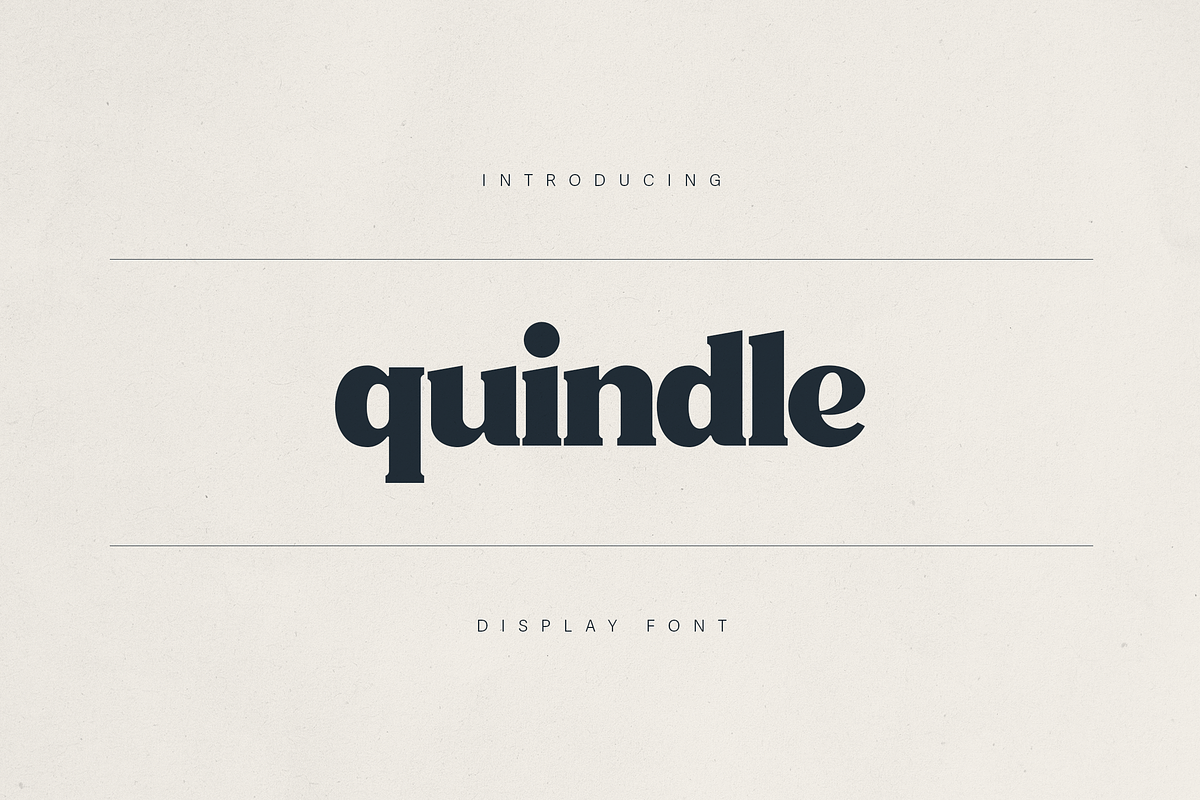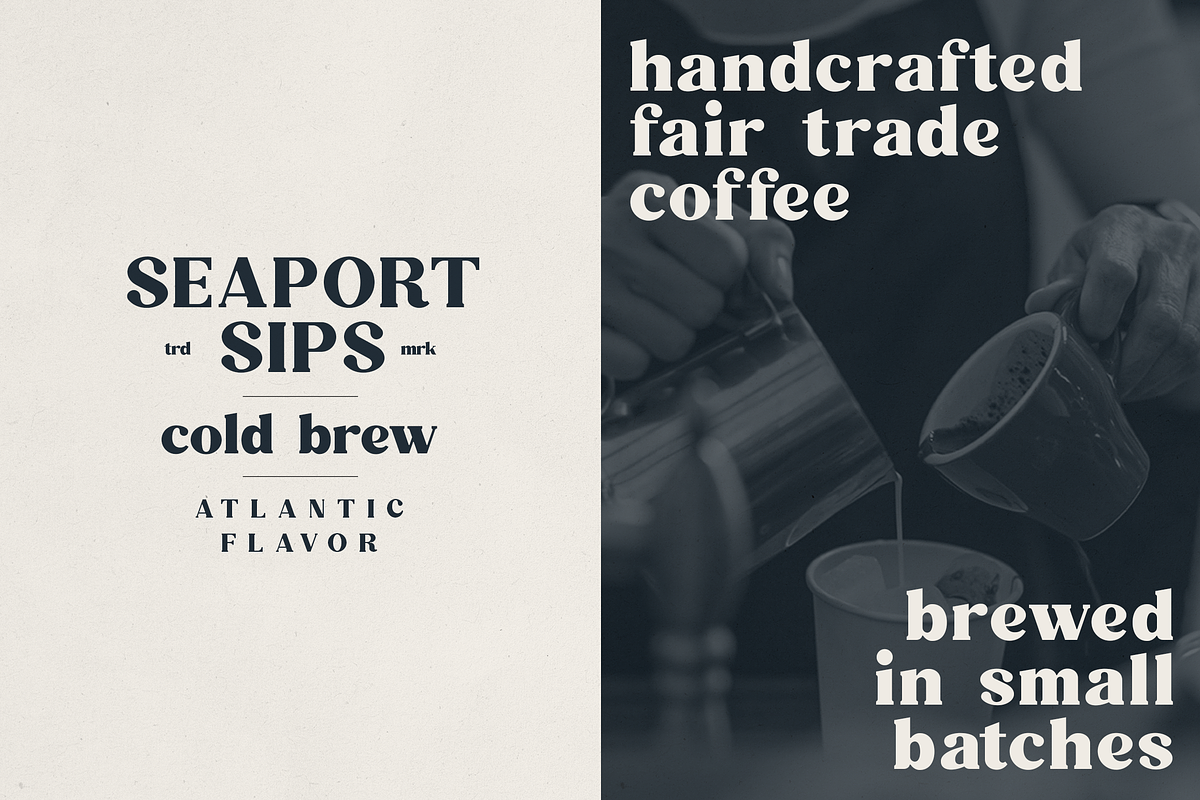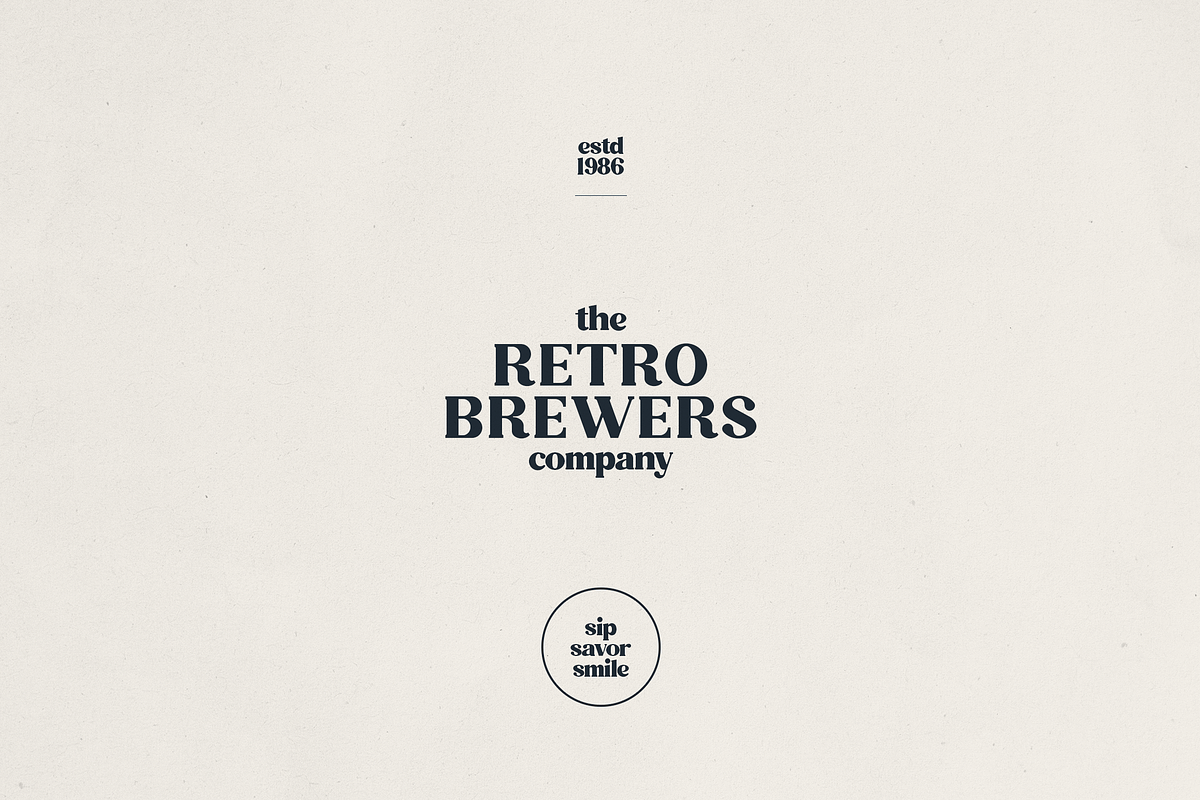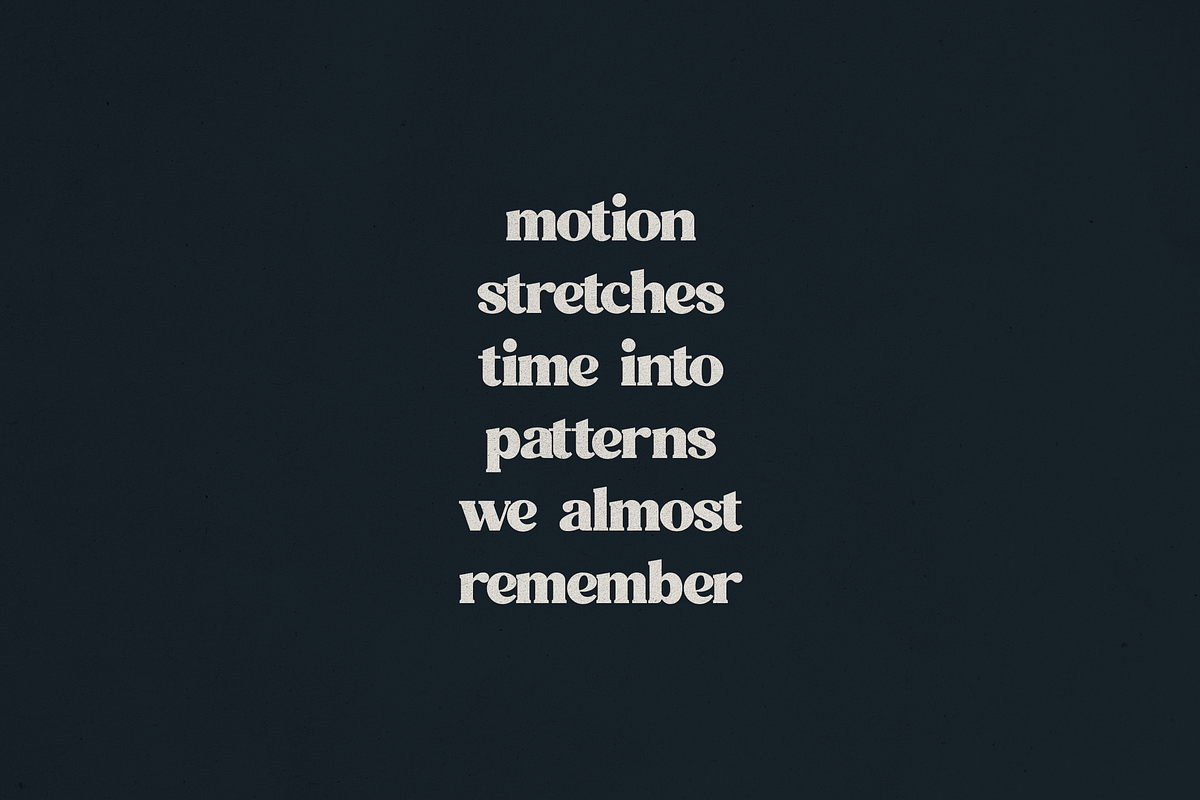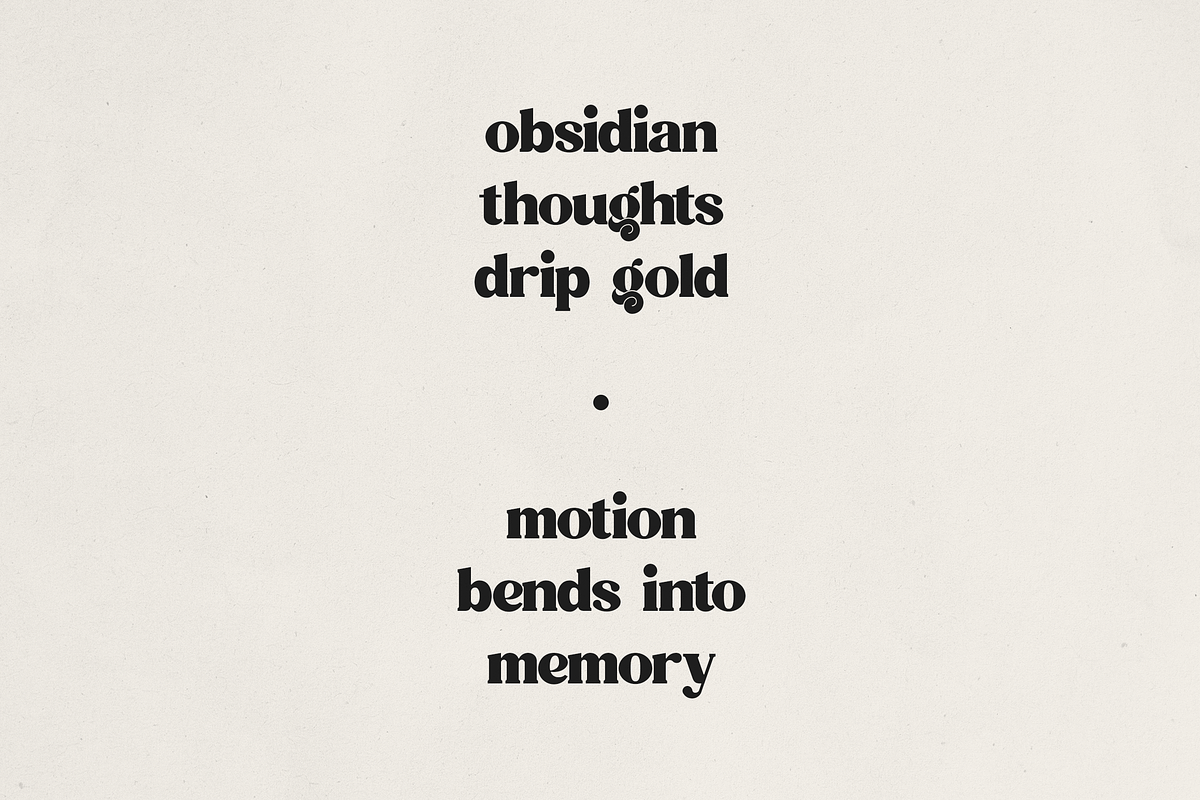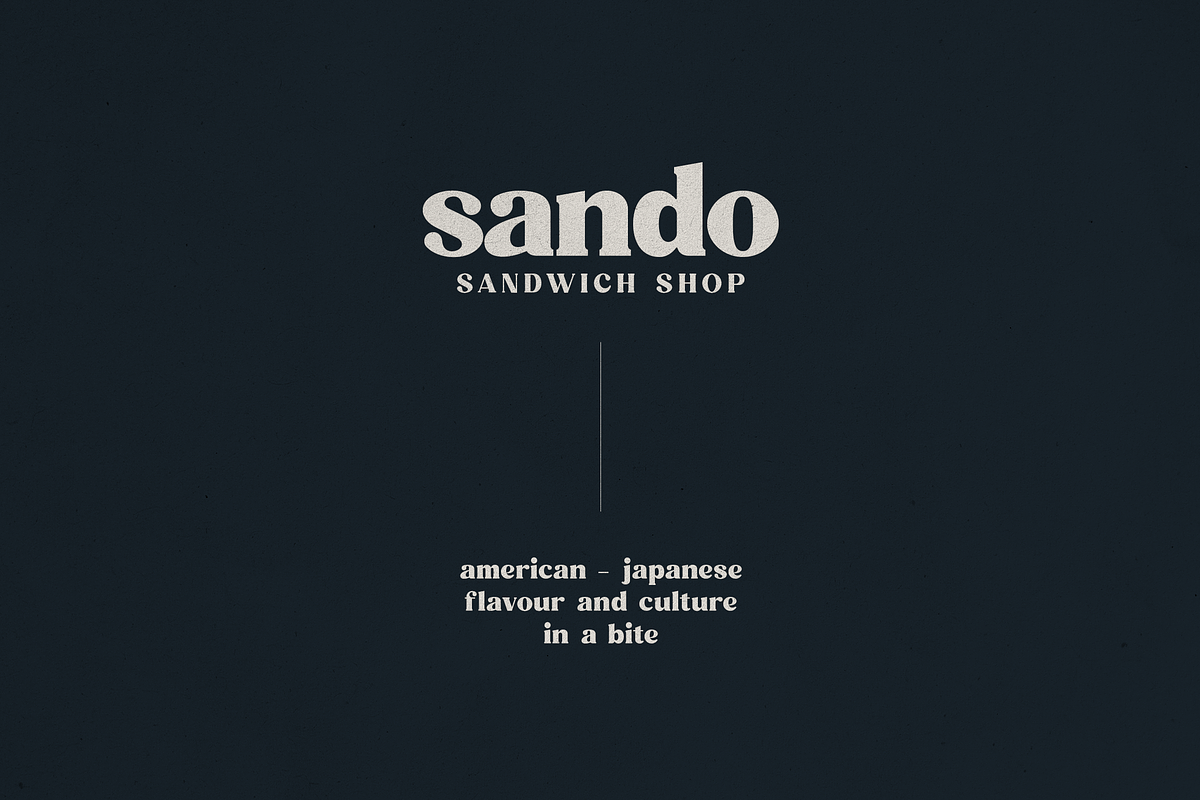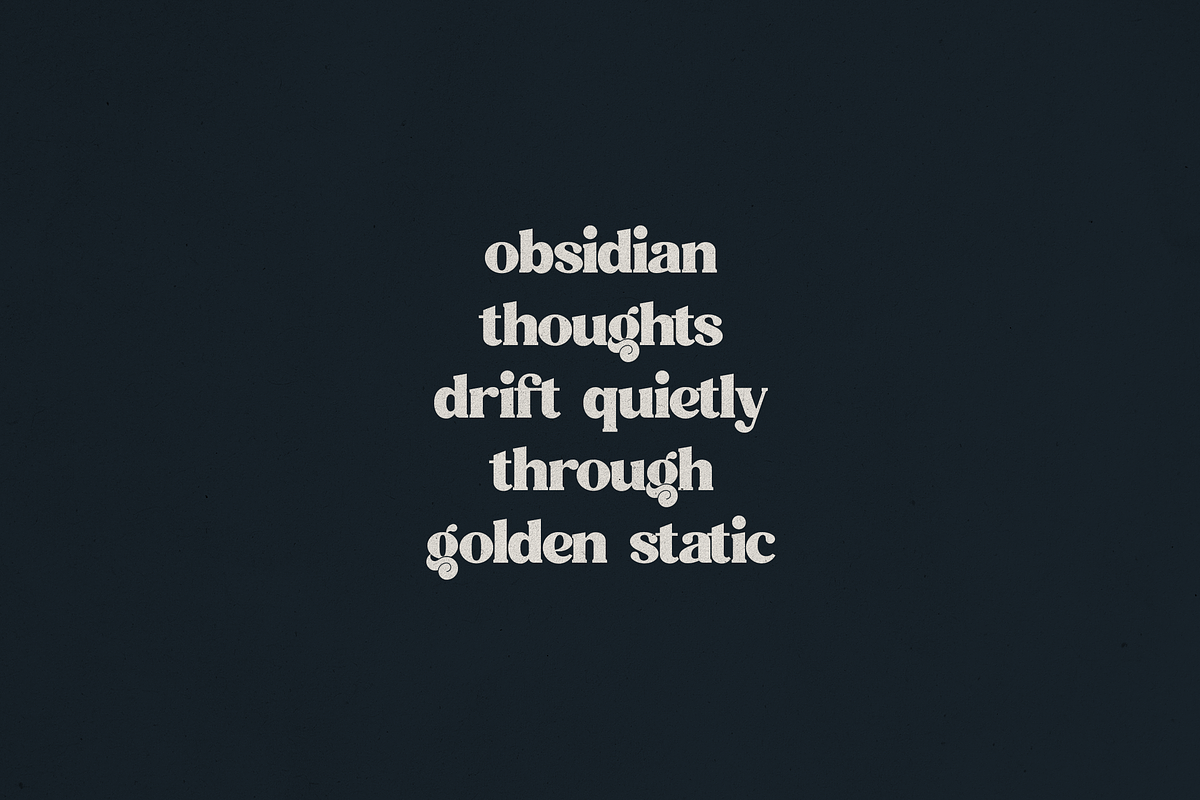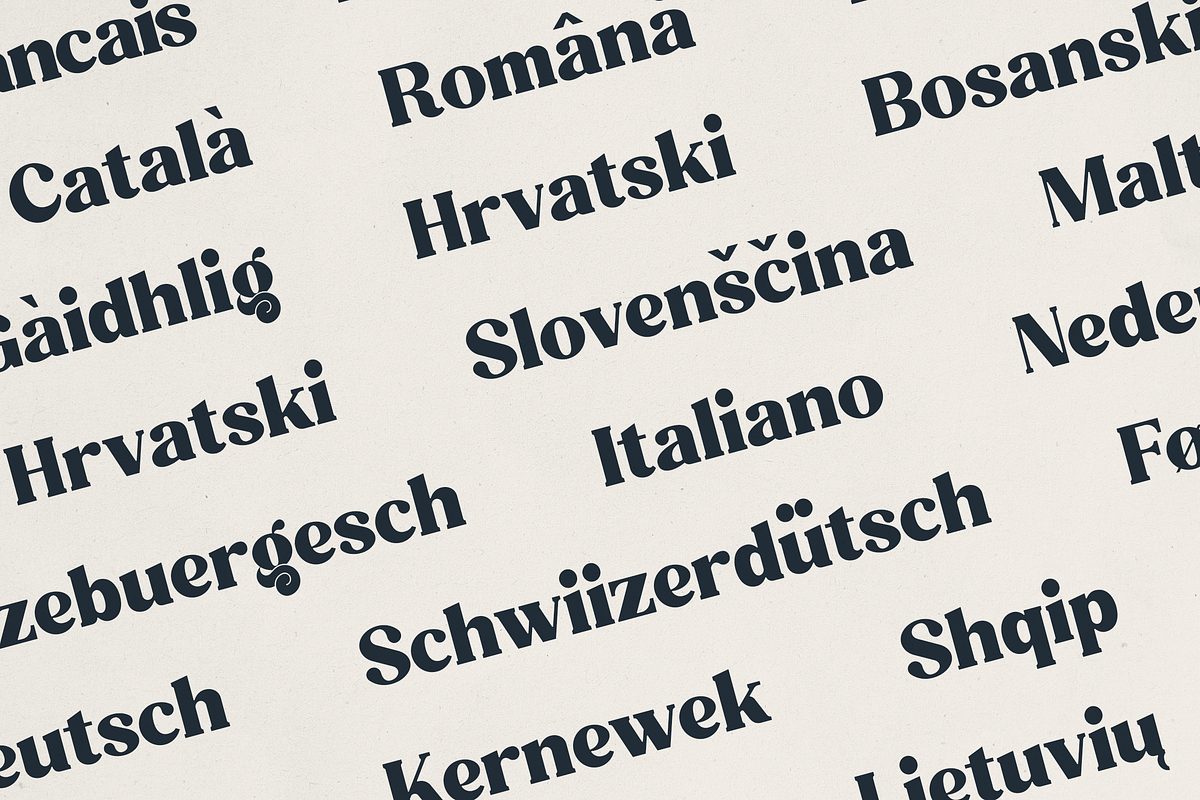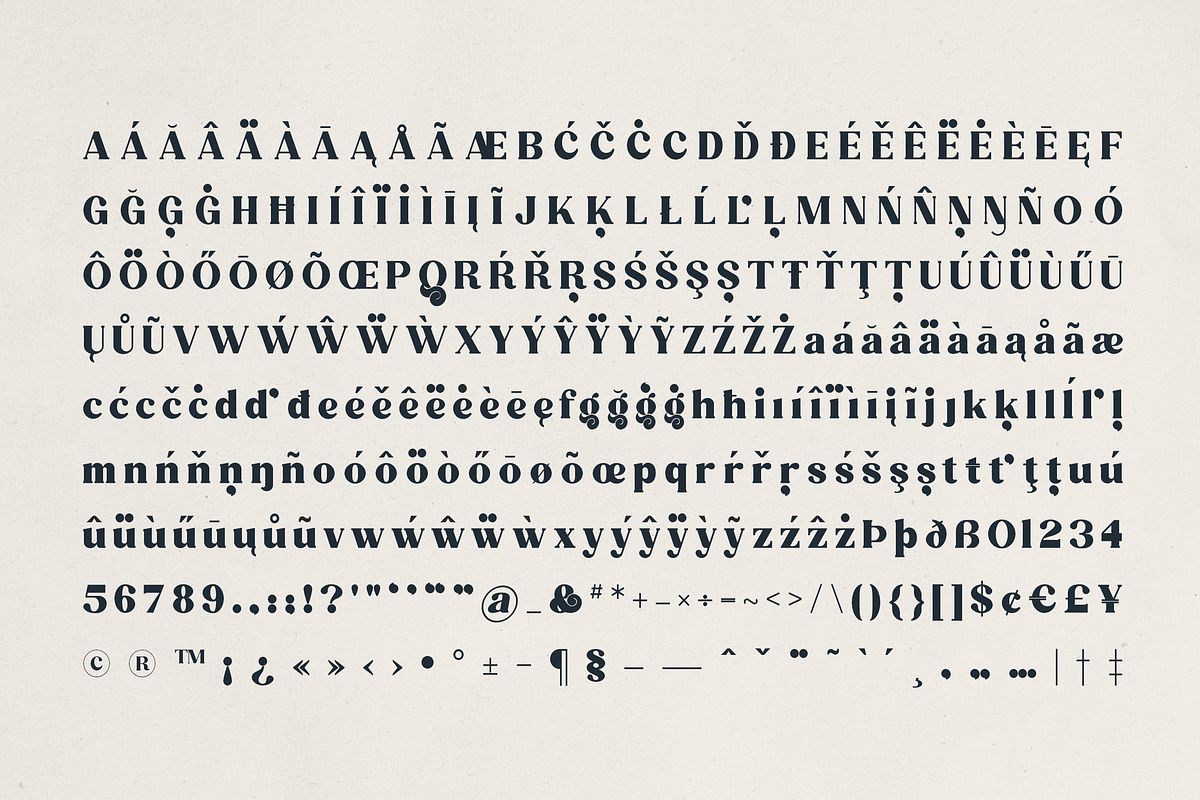
Quindle – Retro Serif Display Font
Quindle – Retro Serif Display Font for Bold, Artful Branding
Quindle is a bold display serif font that blends vintage charm with modern versatility. Designed for standout branding, packaging, headlines, and editorial use, Quindle features strong letterforms, high contrast strokes, and unique stylistic flourishes that give your text a distinct voice.
Perfect for artisan brands, café menus, nostalgic labels, and poetic expressions, Quindle includes multilingual support, refined ligatures, and carefully crafted alternates. Whether you're crafting a handcrafted coffee brand or a timeless design statement, Quindle delivers character with clarity.
- Display serif with retro-modern flair
- Multilingual character support
- Ideal for logos, packaging, posters, editorials, and signage
Elevate your typography with Quindle — where boldness meets elegance in every curve.